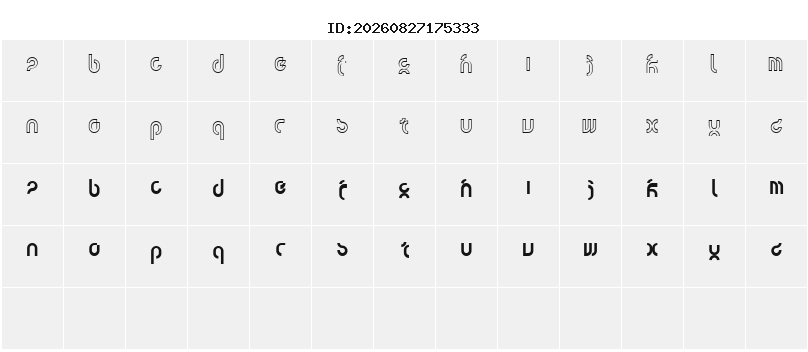
tsunami Preview
About tsunami.ttf
tsunami.ttf is a modern, elegant sans-serif font designed for ultimate readability and visual harmony. Perfect for branding, headlines, web design, and print materials.